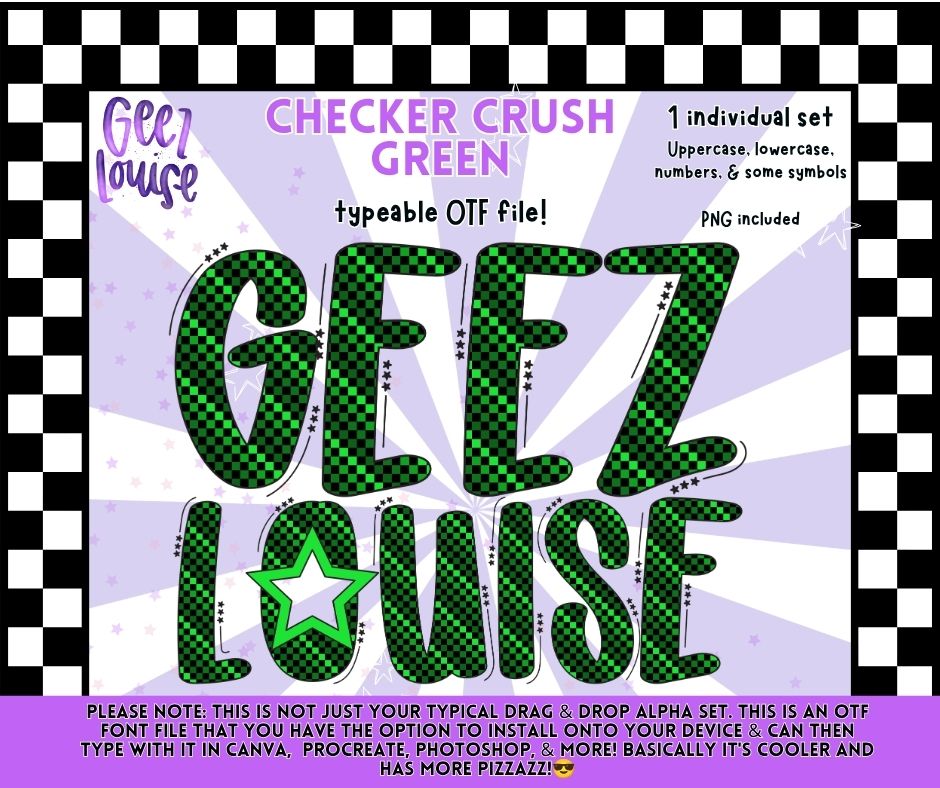
Checker Crush Green Alpha Font OTF | Green Checker Alphabet PNG | Typeable Font | Sports Font
💚🖤 Bring fresh energy to your designs with Checker Crush Green Alpha! This bold typeable font features a vibrant green and black checker pattern that's perfect for sports teams, St. Patrick's Day projects, racing-inspired designs, gaming themes, and everyday apparel.